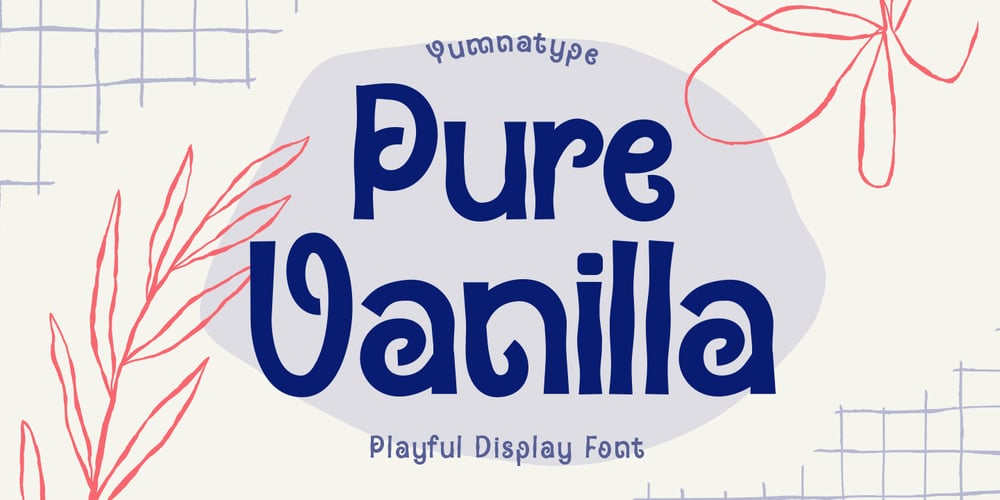
Pure Vanilla
Pure Vanilla font
Pure Vanilla Font Family was designed by Donis Miftahudin and published by Yumna Type. Pure Vanilla contains 1 styles and family package options. Pure Vanilla is a charming display font that exudes sweetness and playfulness. The letter shapes in Pure Vanilla are subtly rounded, giving them a soft and friendly appearance that invites viewers to engage with your text. Each letter is meticulously crafted with consistent proportions, creating a harmonious rhythm and flow that adds to the font’s overall charm. In addition, enjoy the features here.Features: Multilingual Supports PUA Encoded Numerals and Punctuations Pure Vanilla fits in headlines, logos, posters, flyers, branding materials, print media, editorial layouts, and many more designs. Find out more ways to use this font by taking a look at the font preview.Thanks for purchasing our fonts. Hopefully, you have a great time using our font. Feel free to contact us anytime for further information or when you have trouble with the font. Thanks a lot and happy designing.